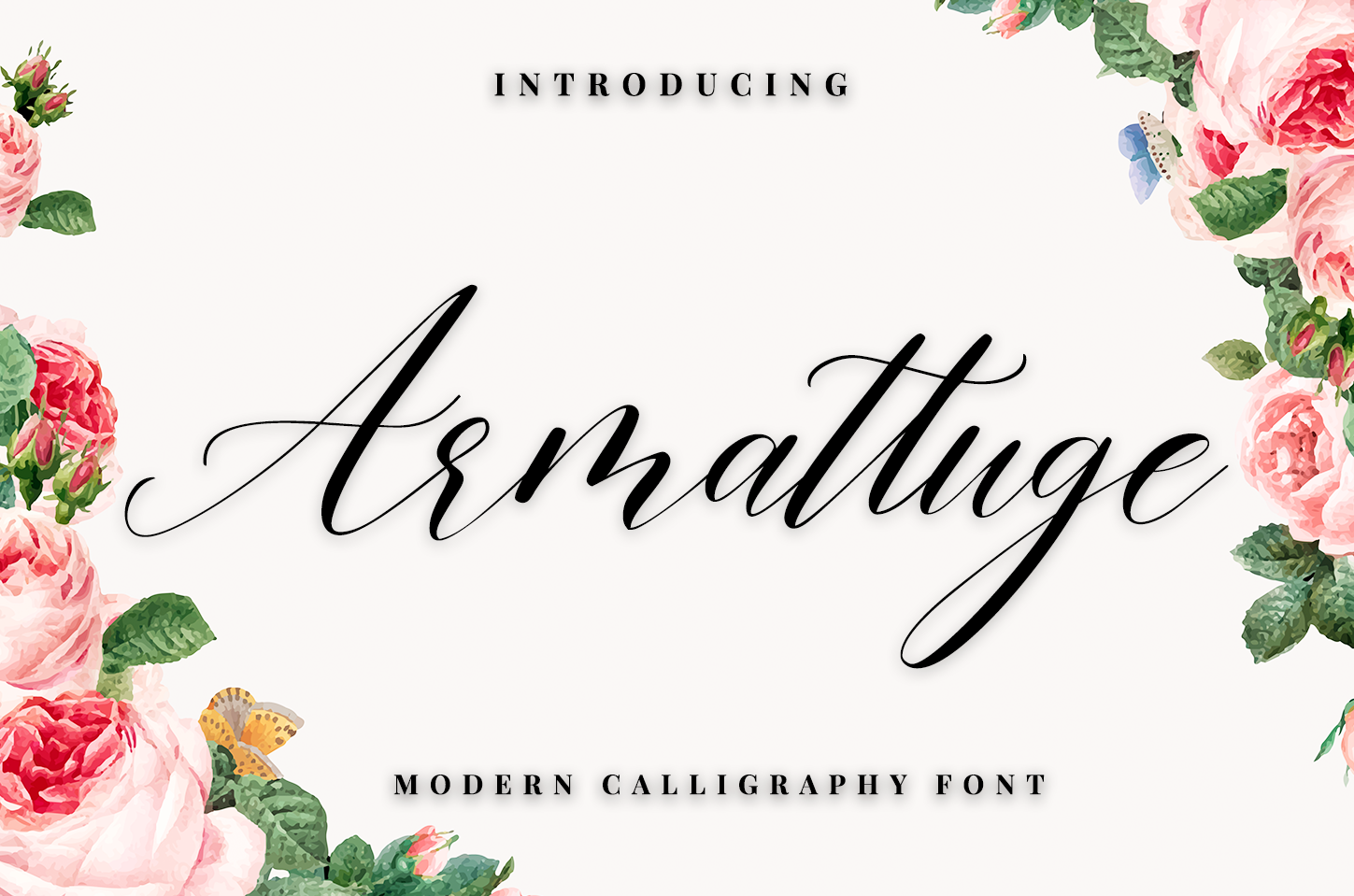
Armattuge - Script font
Armattuge - a new fresh handmade calligraphy font.
Very suitable for greeting cards, branding materials, business cards, quotes, posters, and more!This font are perfect for wedding postcard. Or you can create perfect and unique design of your logo, blog, stationery, marketing, magazines and more :)
Ligatures , Alternates